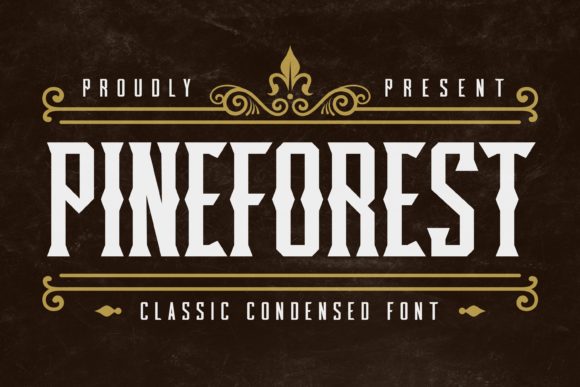
Pineforest Font
In a world where self-expression dances across your very skin, Pineforest Font stands as a breathtaking display font, poised to etch your creativity onto the canvas of life. This font isn't just a font; it's an invitation to embark on a journey of individuality, a testament to the beauty of being YOU.
Pineforest Font isn't just another font; it's a statement. A testament to the beauty of individuality, a celebration of self-expression that pushes the boundaries of creativity. Each letter, meticulously crafted and elegantly chiseled, holds the power to transform your words into captivating works of art.
With Pineforest Font, the mundane becomes mesmerizing. A simple greeting morphs into an eloquent declaration, a love letter evolves into an epic ballad, and a tattoo design unfurls as a saga inked in the annals of your soul. Embrace Pineforest Font, and unlock the boundless potential that lies within you, waiting to be unleashed.
Gone are the days of boring, conventional fonts that stifle your imagination. Pineforest Font is the key to unlocking a world where your creativity knows no limits, where every stroke of the pen leaves an indelible mark of your unique essence. Embrace the unconventional, defy the norm, and watch as your words dance with newfound grace and power.
Pineforest Font isn't just a font; it's a movement. A clarion call to embrace your individuality, to let your true self shine through in every word you write. It's an invitation to a world where self-expression is celebrated, where the ordinary becomes extraordinary, and where your creativity finds its voice.